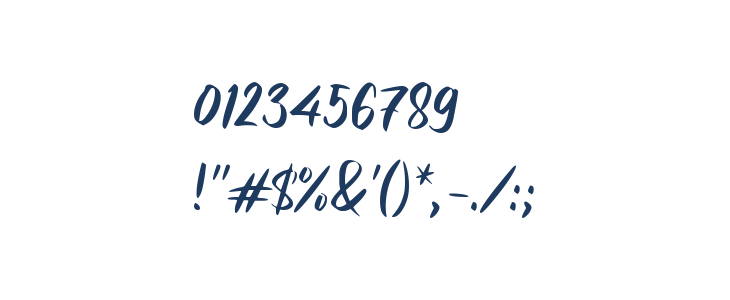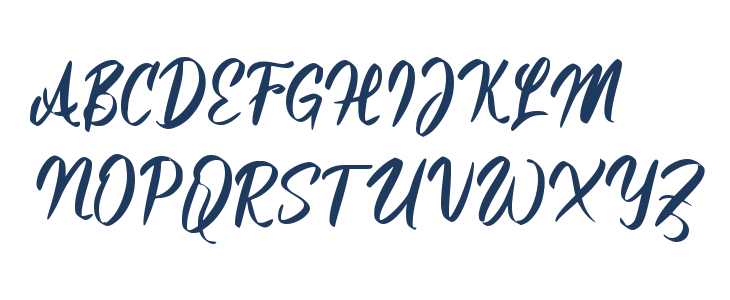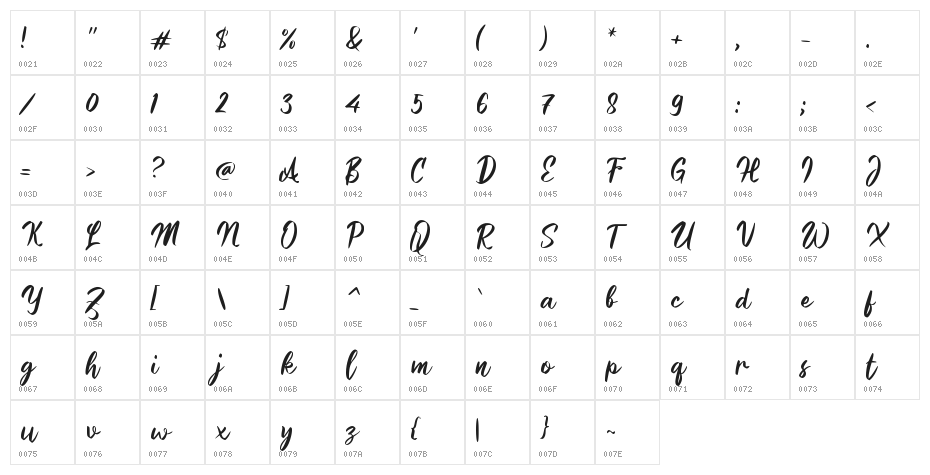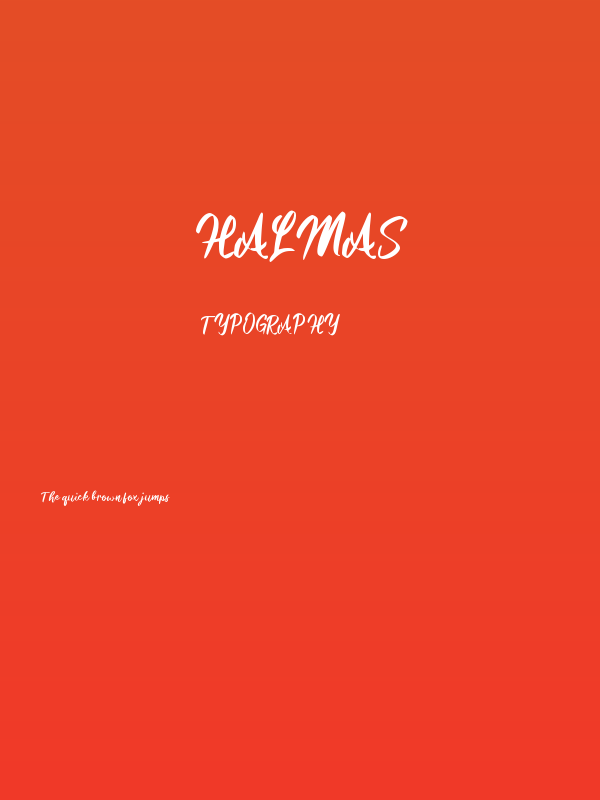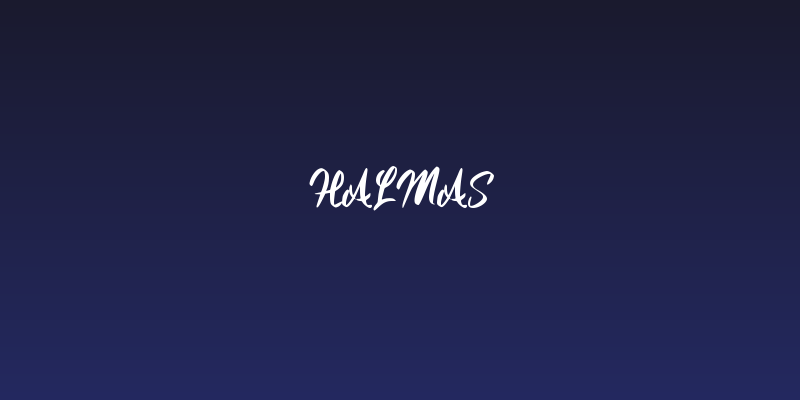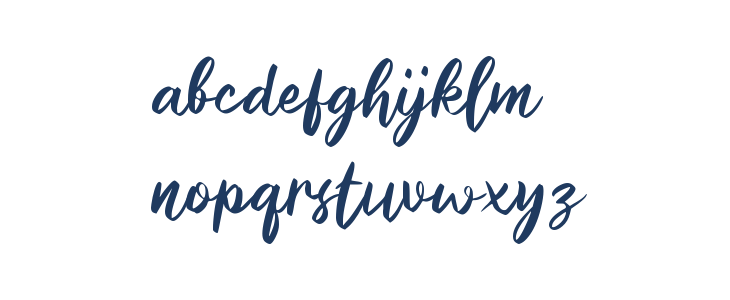
Halmas Font
Halmas Description
A bold, flowing script font with a handwritten, brush-like appearance, featuring connected letterforms and expressive strokes. The characters have a dynamic slant and varying thickness, giving a lively and personal feel.
| Overall Style | Decorative, Handwritten, Modern |
| Use Case | Logos, Headlines, Invitations, Posters |
| Proposed Projects | Greeting cards, invitations, branding, social media graphics, posters. |